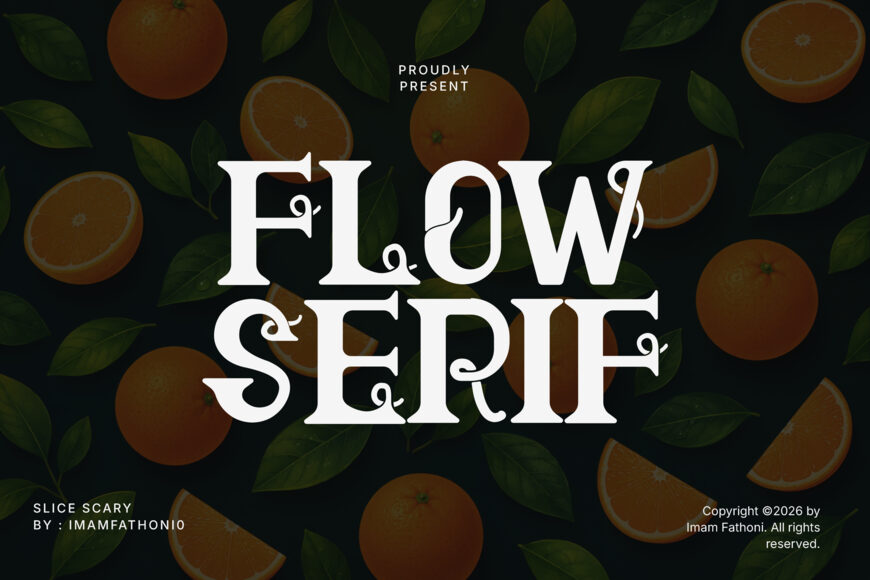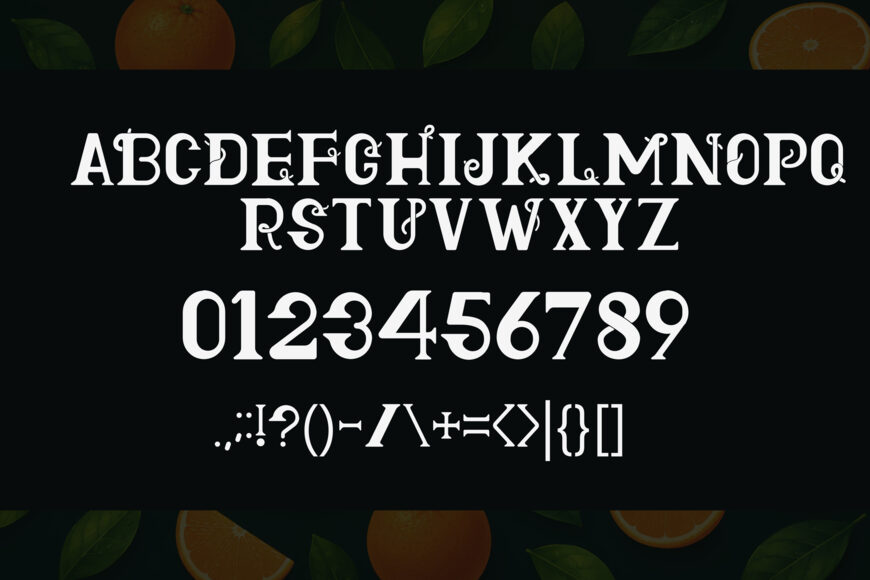
Flow Serif is an elegant serif display font with vine-like swashes and floral flourishes woven into its letterforms, evoking the graceful curl of climbing plants. Its refined, botanical character adds a natural elegance to titles that need to feel organic yet sophisticated.
Perfect ror restaurant and fine dining menu titles, wedding invitations, boutique branding, floral shop packaging and labels, garden event signage, luxury logo design, greeting cards, cafe signage, social media promotional graphics, cookbook and recipe titles.